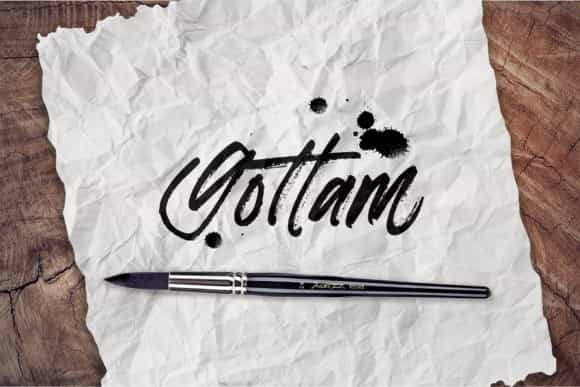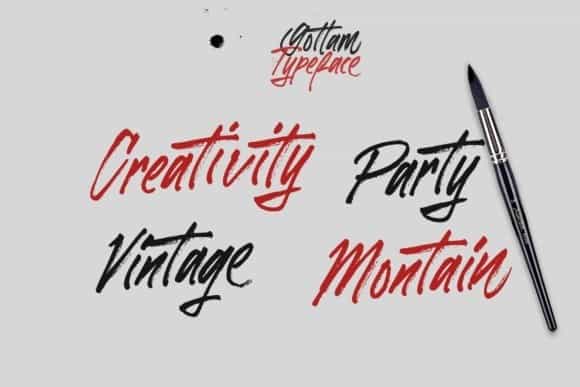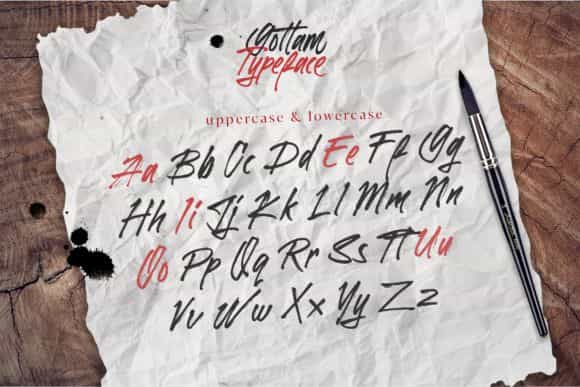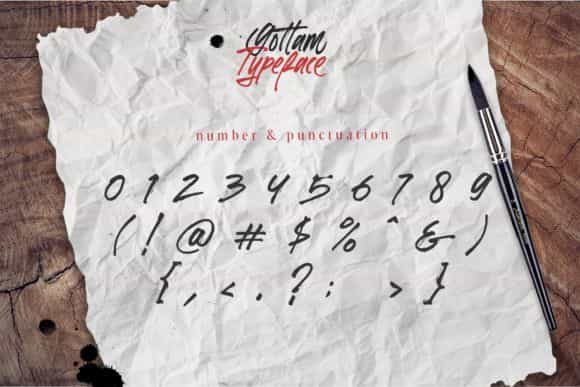
Discover Gottam Hand Drawn Script Font, part of the Brush Handwritten collection—a versatile and unique font perfect for adding a personal touch to your projects. Download it for free and enjoy crafting designs with style, from invitations to social media posts. This font is available exclusively for personal use, giving you the freedom to create without limits. Unlock your creativity with Gottam Hand Drawn Script Font today!
The Gottam font is hand drawn and has a warm, natural material look; perfect for health spa brochures, etc. – fonts like this are highly energetic and fun to draw. This might give the sense of an overly playful baseline that bounces around, but this is font that, when used correctly, stands proud and distinct.